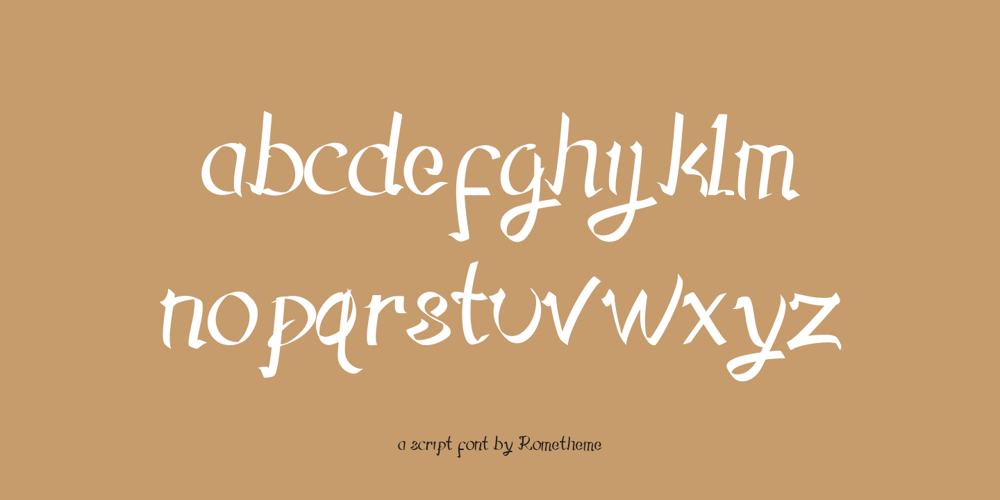
Hegorustow Font Family was designed by Yahdi Kumala and published by Rometheme. Hegorustow contains 1 styles and family package options. Hegorustow is a luxurious and classy handwritten font. This font looks vintage, elegant, readable, stylish, catchy and easy to use.